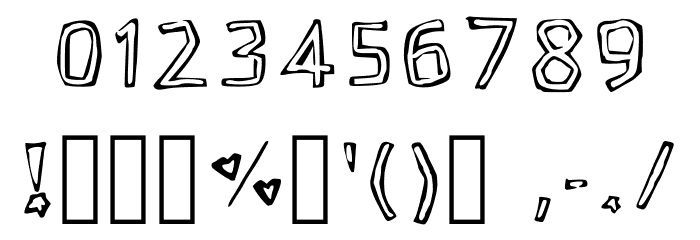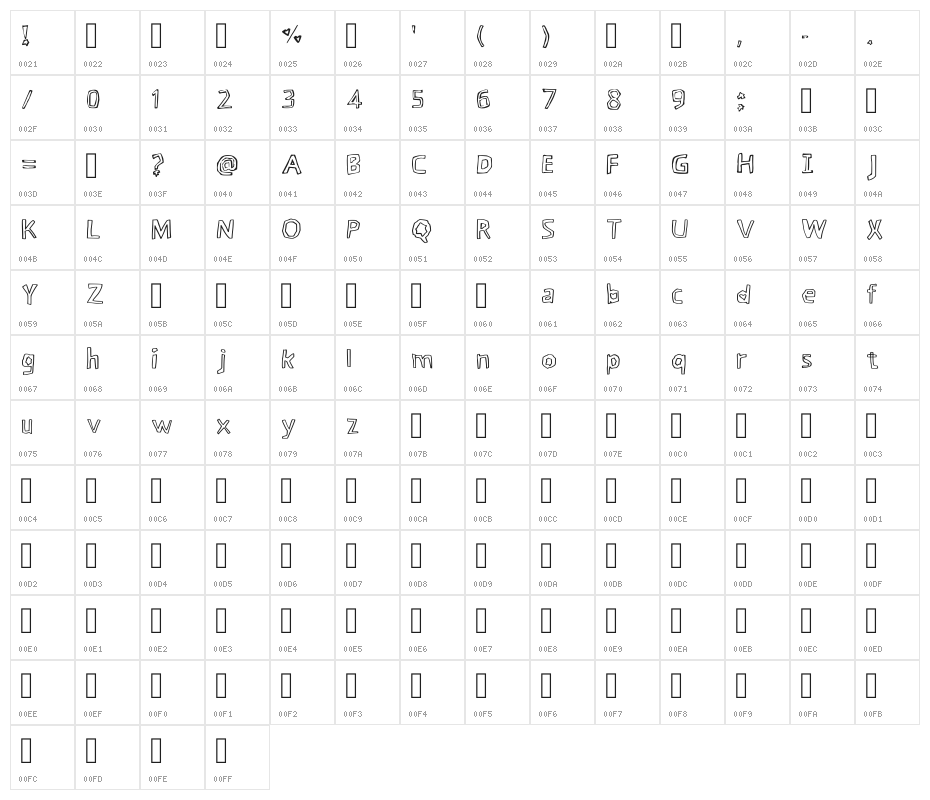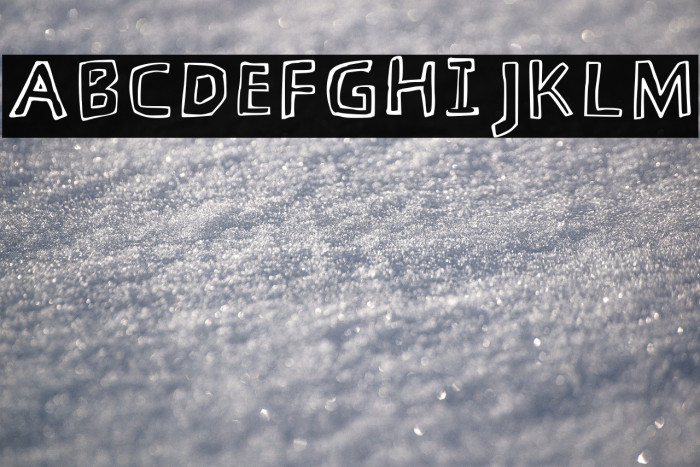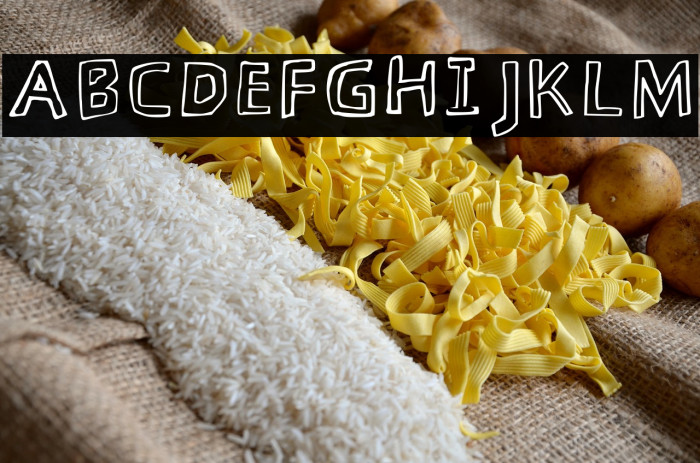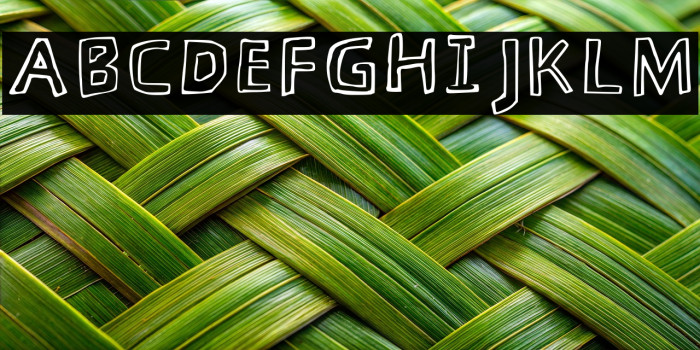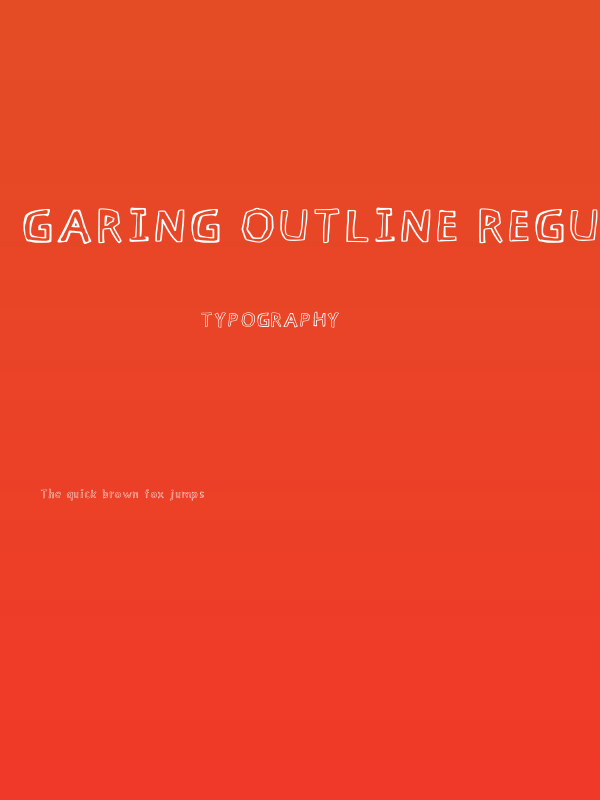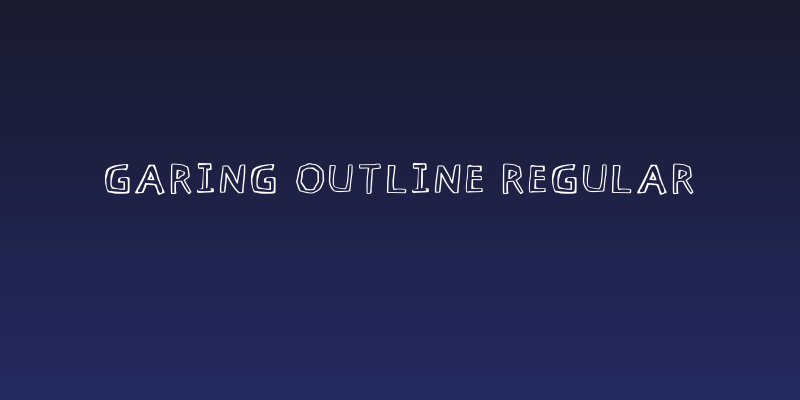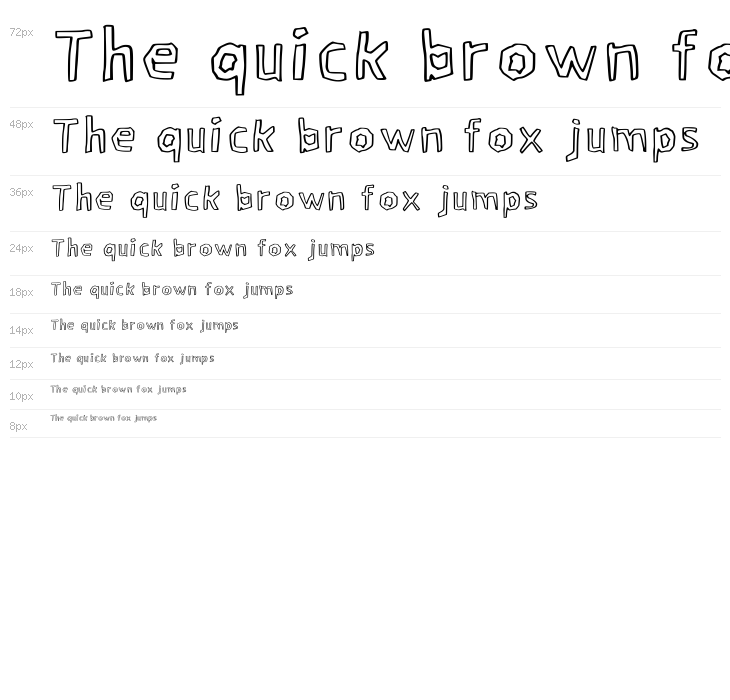
Garing Outline Regular Font
Garing Outline Regular Description
This font features a playful and quirky outline style, giving each character a hand-drawn appearance. The letters are slightly irregular, adding to the whimsical and informal feel. The uppercase and lowercase letters maintain a consistent style, with the outlines creating a bold yet airy look. The numerals and special characters follow the same design, ensuring a cohesive appearance across all glyphs. This font is ideal for projects that require a fun and casual vibe, such as children's books, playful branding, or creative posters.
| Proposed Projects | Children's books, playful branding, creative posters, casual invitations. |